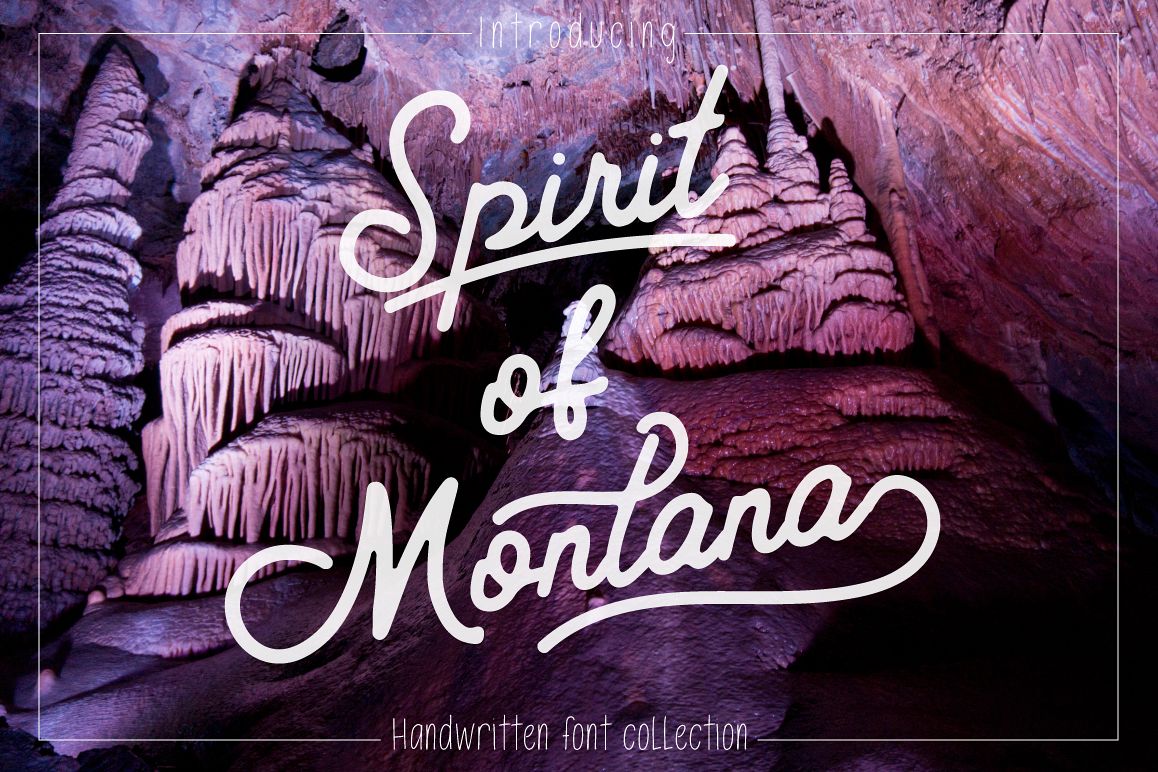
Spirit of Montana
Handwritten Script font with extras and stylistic alternatives. You can make your unique inscription, because the font family contains Outline and Sans variation. Lovely fonts would be perfect to combine in your design. This fonts are perfect for your blog or postcard for wedding. Also with their help, you can create a logo or beautiful frame for your home. Or just use for your small business, book covers, stationery, marketing, magazines.
• Spirit of Montana Script. Script with Alternative Uppercase.
• Spirit of Montana Outline Script.
• Spirit of Montana Sans.